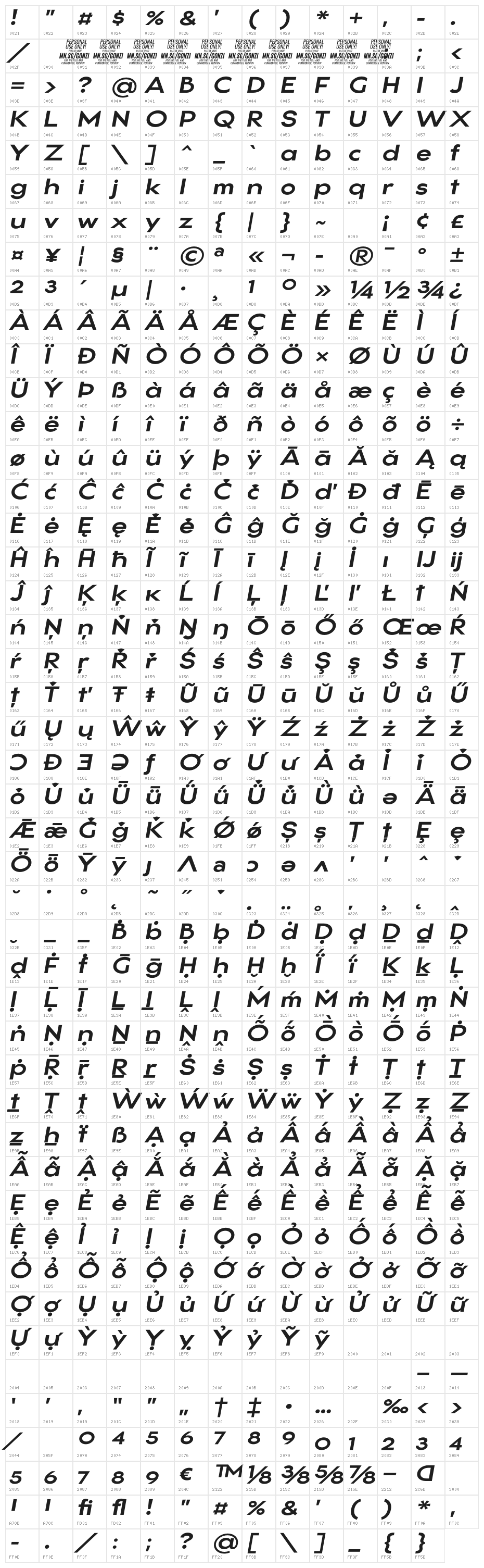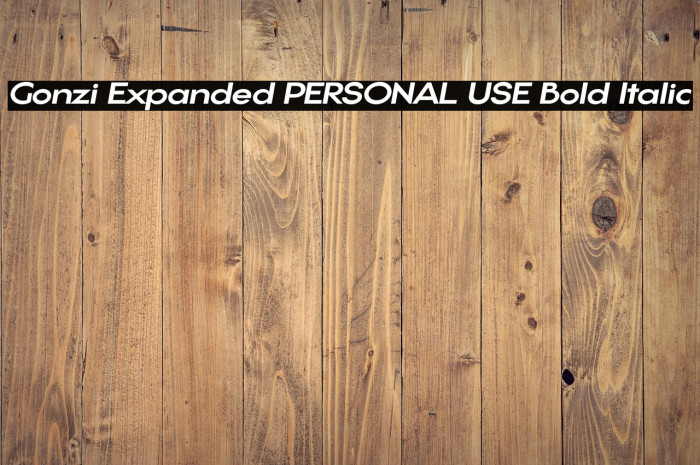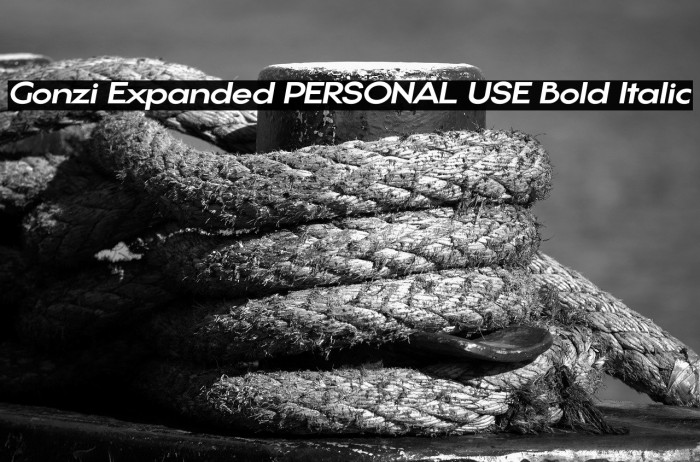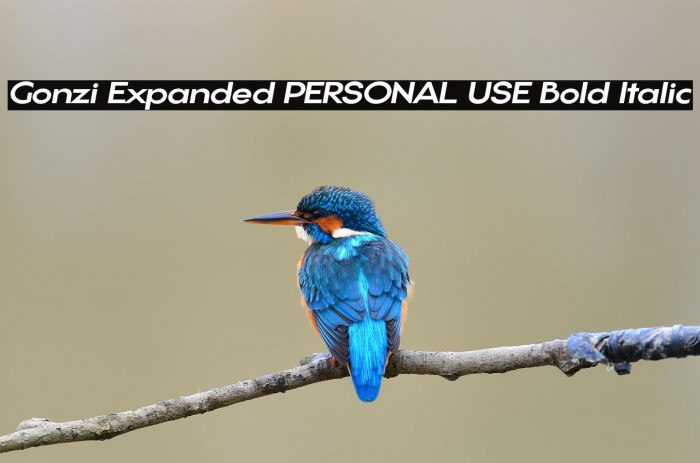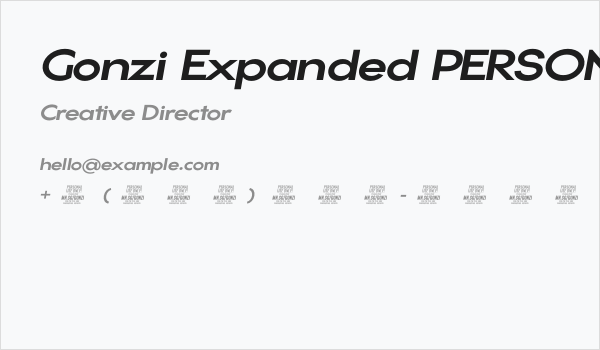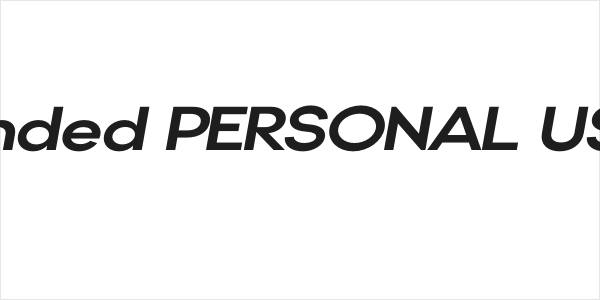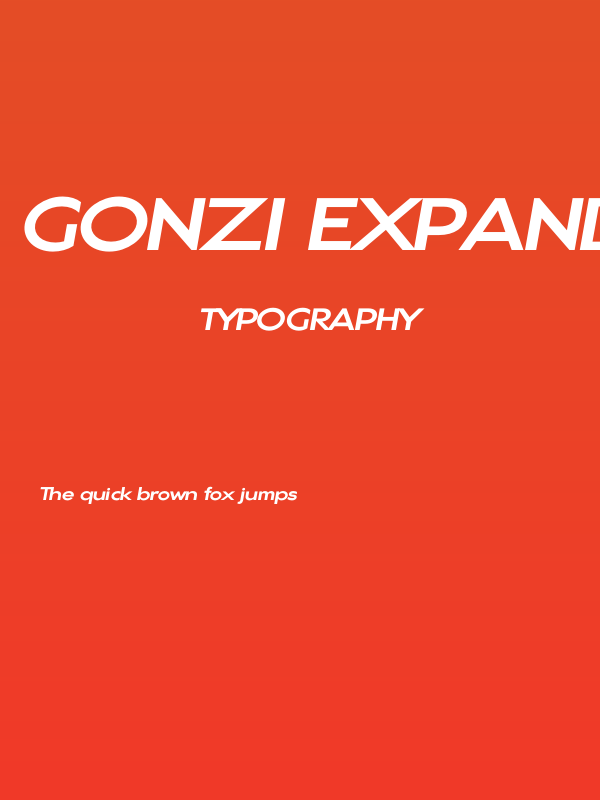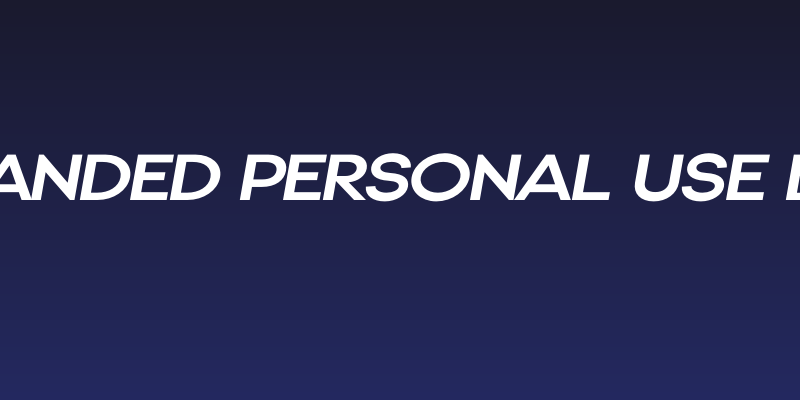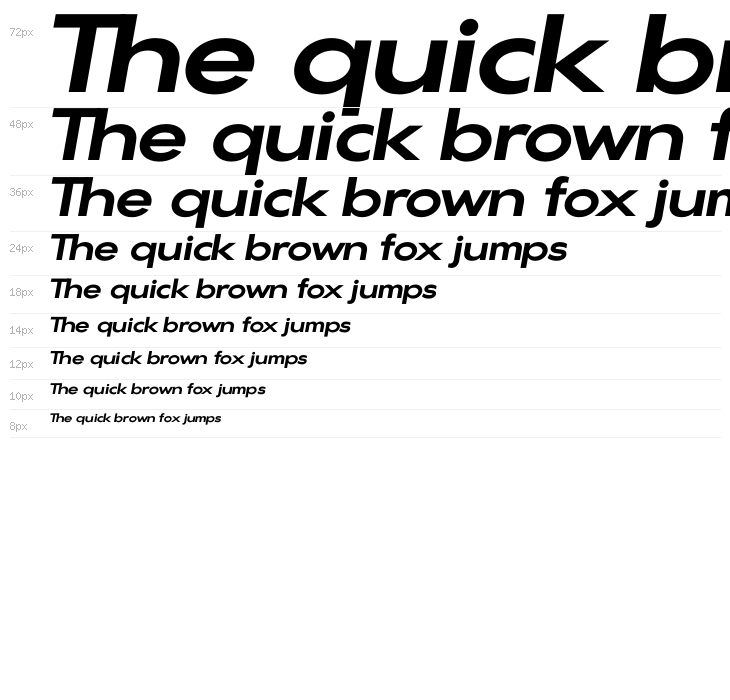
Gonzi Expanded PERSONAL USE Bold Italic Font
Gonzi Expanded PERSONAL USE Bold Italic Description
This font features a bold and italicized style with a distinctly modern and dynamic appearance. The letters are expanded, giving them a wide stance that enhances readability while maintaining a sleek and stylish look. The uppercase and lowercase characters are well-balanced, with a slight slant that adds a sense of motion and energy. The numbers and special characters are consistent with the overall design, providing a cohesive and versatile typeface. This font is ideal for making a strong visual impact, suitable for various design projects that require a bold statement.
Use CaseHeadlines, Logos, Branding
Proposed ProjectsIdeal for branding, advertising, headlines, and any project requiring a bold and modern typeface.